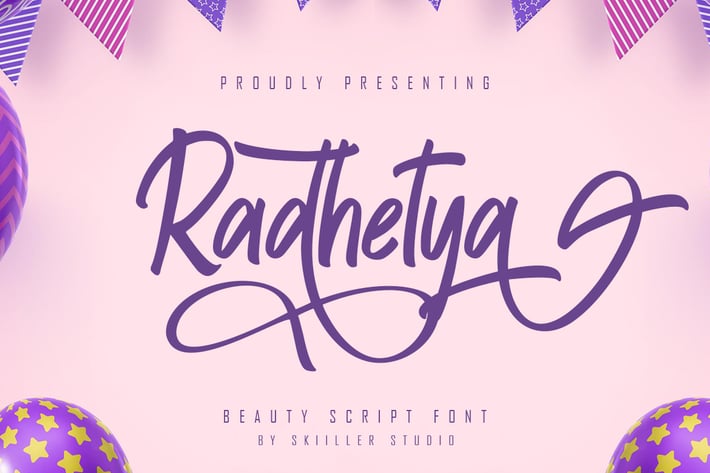
Radhetya Beauty Script Font
Radhetya Beauty Script Font with a unique feel and a stunning impact. It will add a luxury spark to any design project that you wish to create! This font is PUA encoded which means you can access all of the amazing glyphs and ligatures with ease!
+ ligature
+ Stylistic Alternate
+ Stylistic Set Full